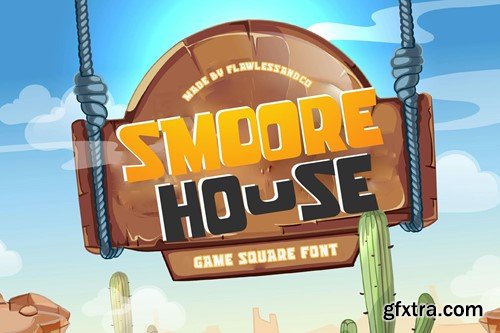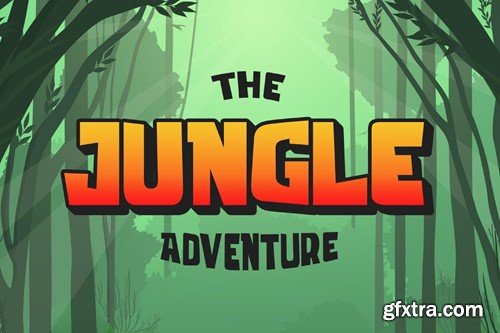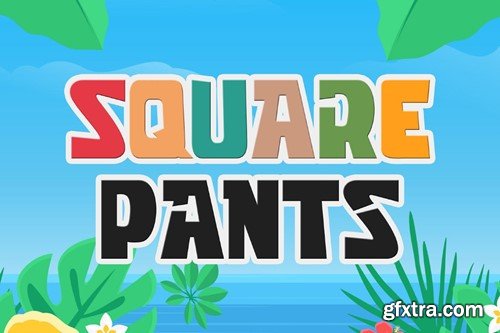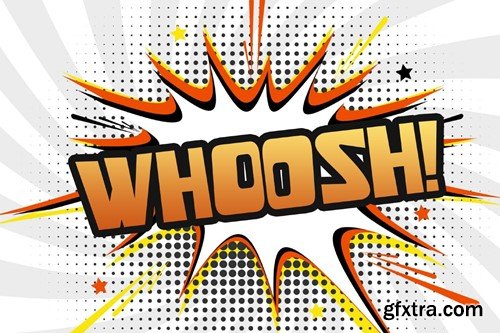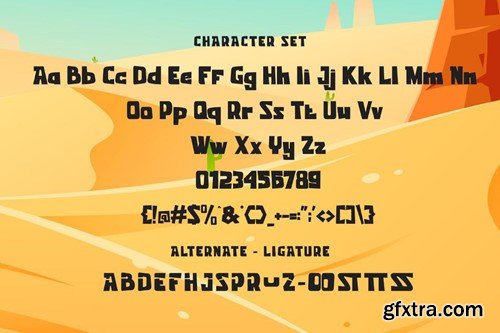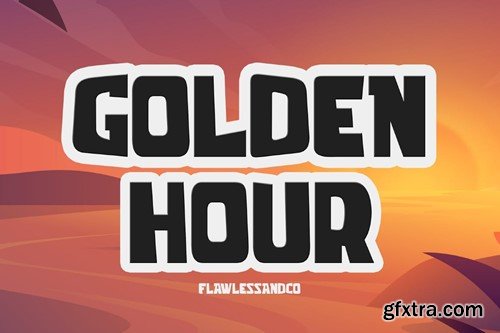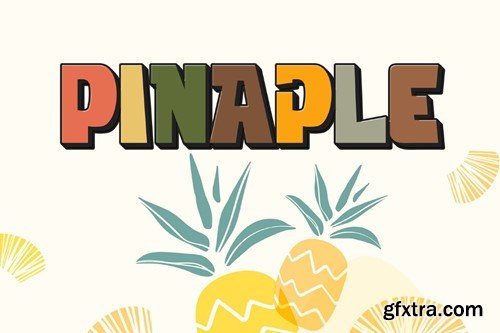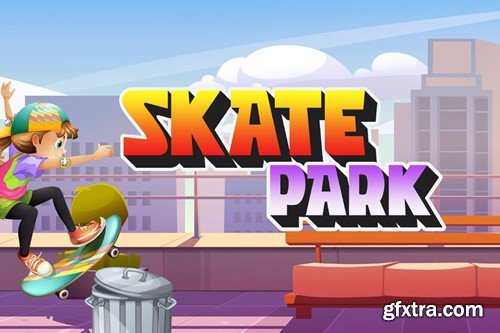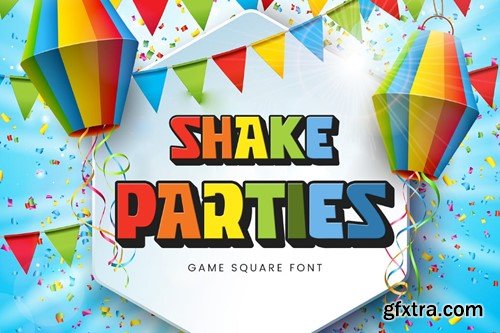
Smoore House - Game Font, Fun Font, Playful Font, Dialogue Font, Square Font, Display Font, Modern Font, Logo Font, Branding Font, Canva Font, Cricut Font, Cursive Font, Procreate Font Introducing "Smoore House" a game square font. Enter the pixelated realm of gaming with "Smoore House," a bold and dynamic square font designed to elevate your gaming experience to new heights. With its sharp edges and futuristic vibe, Smoore House brings a touch of excitement and energy to every gaming interface. Keywords: Game Font Included: Features : Multilingual Uppercase alphabet A-Z Lowercase alphabet a-z Numbers 0-9 Some punctuation NOTE: For all the characters are also available, accessible in the Adobe Illustrator Glyphs Panel, or in Adobe Photoshop Character Open Type Panel. If you need help, just write me! Thanks so much for checking out my shop! ----------------------------------------------- HOW TO USE FONT : (connected letters, swirls, heart, swashes, diamond) for the first, install the .otf file and open fontbook/character map, find the font and you can copy and paste the heart letters from fontbook/character map to your text. Thanks, Flawless and co.